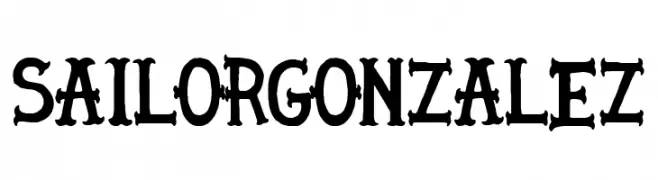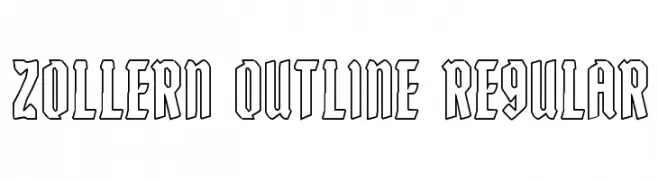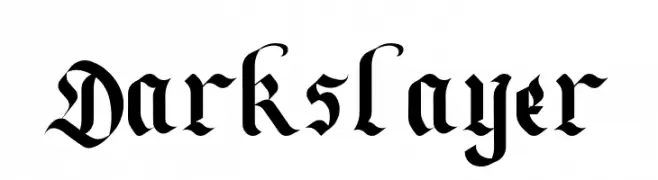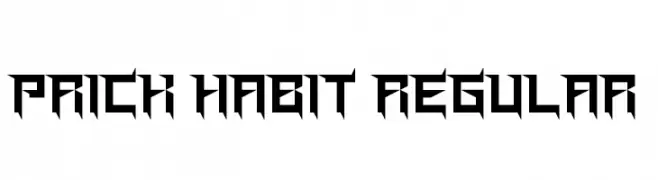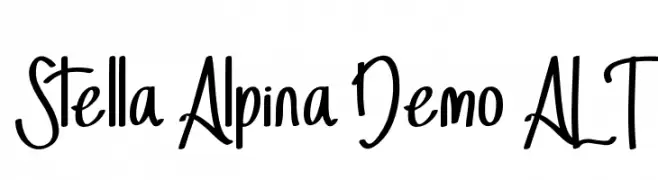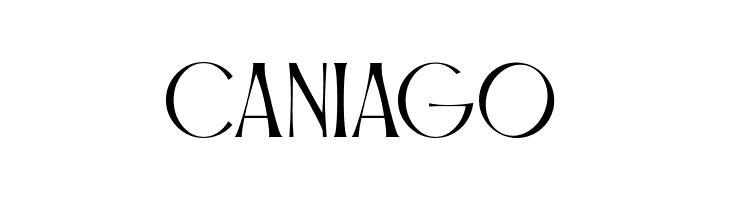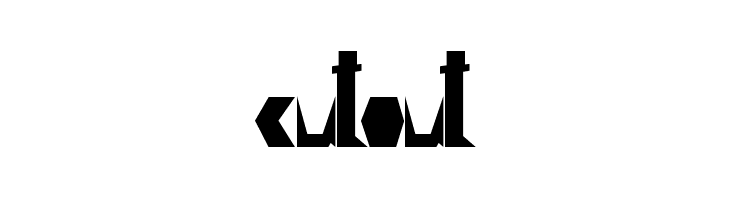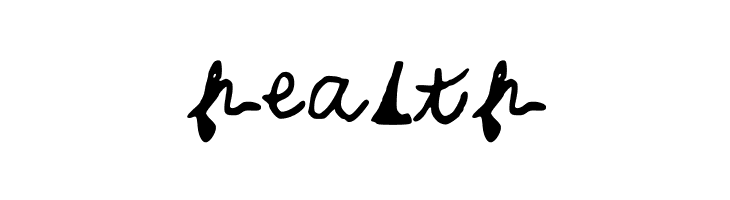
A decorative font with a skeletal, bone-like design, perfect for edgy and creative projects.
A bold, decorative font with a nautical tattoo-inspired design.
A classic blackletter font with ornate, italicized letterforms and a historical aesthetic.
A bold, geometric outline font with sharp, angular edges for a modern and striking appearance.
A bold, gothic Blackletter font with sharp, angular lines and intricate detailing.
A flowing, elegant cursive font with graceful curves and decorative appeal.
A bold, angular font with sharp, geometric edges.
A bold, decorative font with intricate, swirling details and a calligraphic flair.
A playful, interconnected font with a looping, chain-like design.
A playful, handwritten font with whimsical and dynamic strokes.